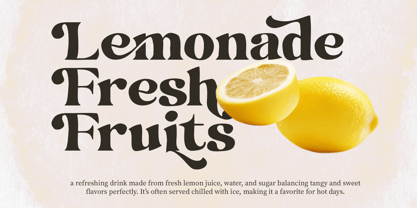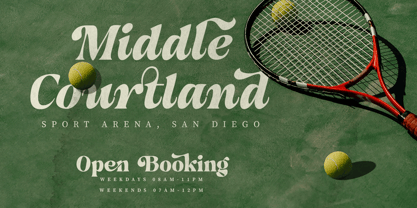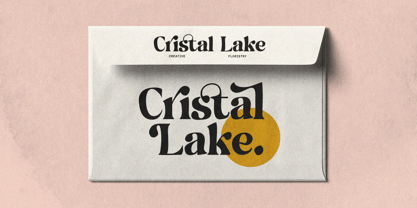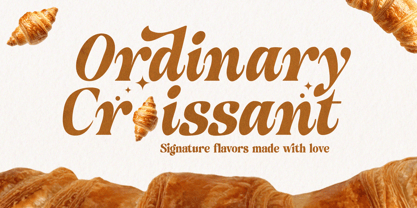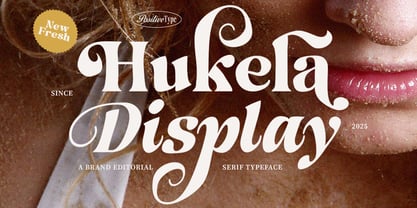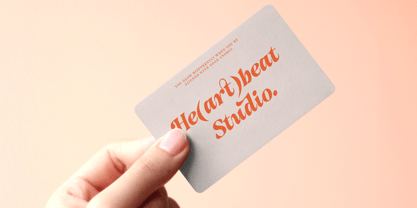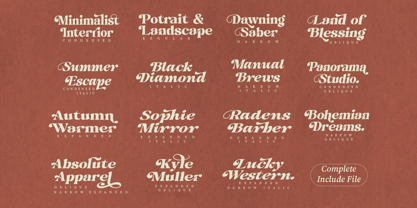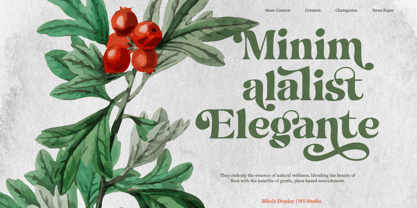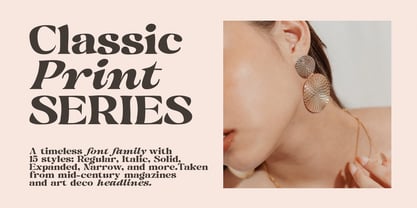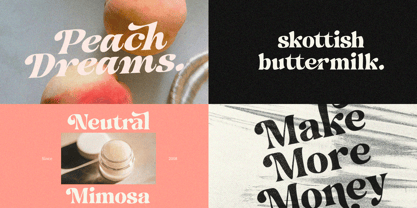
Hukela Display
The Hukela Display Font Family was designed by Nur Hayati and published by Positive Type. Hukela Display contains 15 styles and family package options. More about this family
Hukela Display — A Fresh Editorial Serif Typeface Hukela Display is a bold and expressive serif typeface designed for brands that dare to stand out. With its elegant curves, refined contrast, and striking editorial flair, Hukela brings a sense of sophistication and artistic character to any project. Perfect for magazines, branding, packaging, fashion editorials, and headlines that demand attention. Each letter of Hukela Display carries a crafted charm — combining classical serif elegance with modern sensibility. Its high contrast strokes and unique terminal shapes give it a distinctive voice that feels both timeless and contemporary. Features 15 font styles: Condensed, Condensed Italic, Condensed Oblique, Narrow, Regular, Italic, Italic Narrow, Oblique, Oblique Narrow, Expanded, Expanded Narrow, Expanded Italic, Expanded Italic Narrow, Expanded Oblique, Expanded Oblique Narrow Uppercase & lowercase letters Punctuation & symbols Multilingual support Perfect for branding, headlines, logos, posters, packaging, and editorial design Highlights High-impact display style with refined details Elegant swashes and curves ideal for fashion or lifestyle branding Versatile width and style options for flexible visual storytelling Designed and published by Positive TypeFoundry